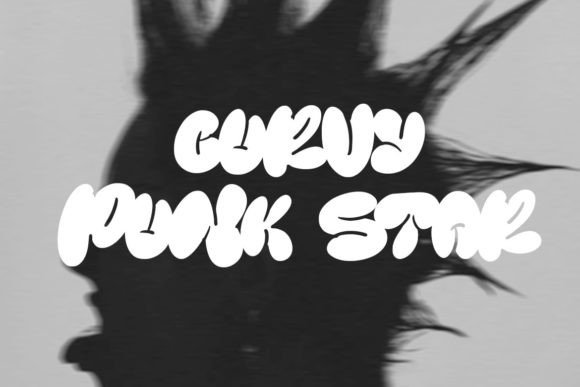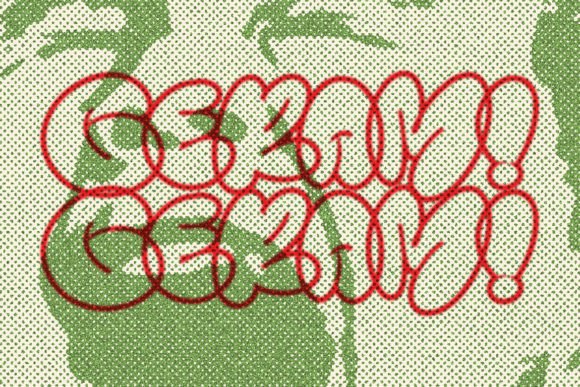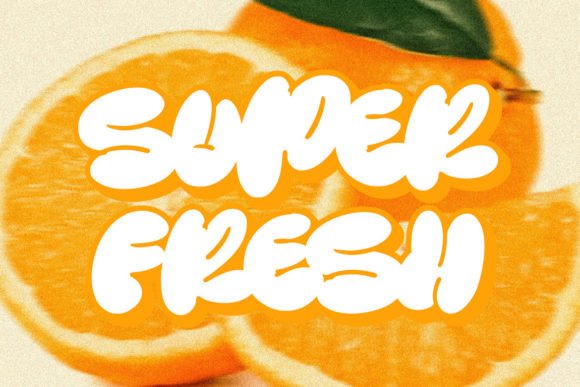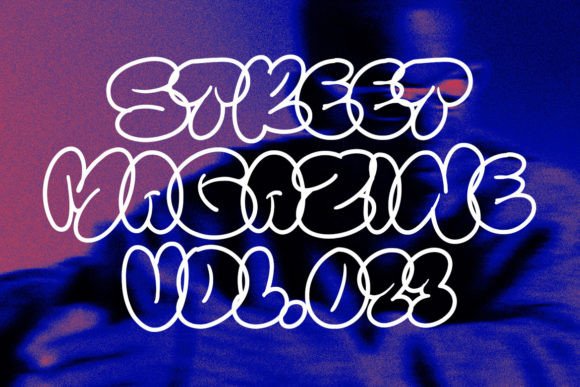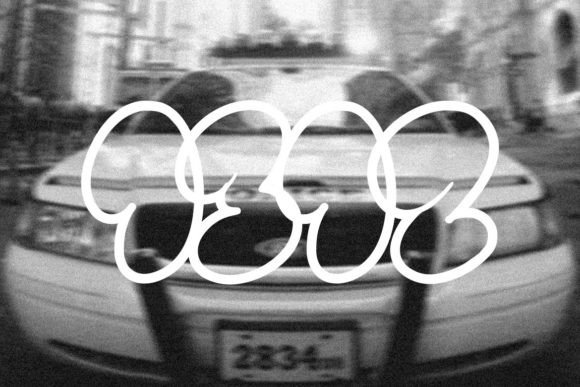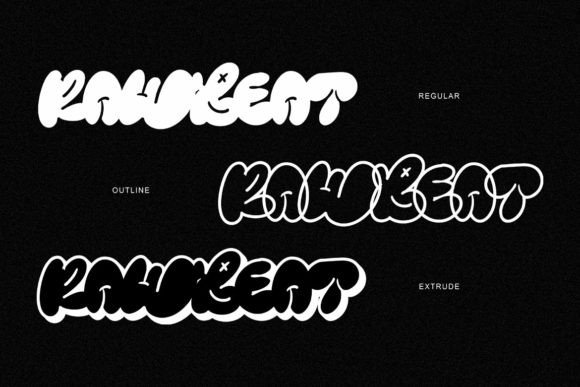
Introduction to Rawbeat Font
RAWBEAT is a Display Font with a graffiti style, this font comes with 3 styles: Regular, Outline, and Extrude.
This font will make your designs or branding stand out and be eye-catching 100% hand drawing to get the artistic look and make it more powerful.
Rawbeat Font offers exceptional quality and versatility, making it a valuable addition to your design toolkit. Whether you’re creating for personal projects or commercial use, Rawbeat Font delivers professional results.